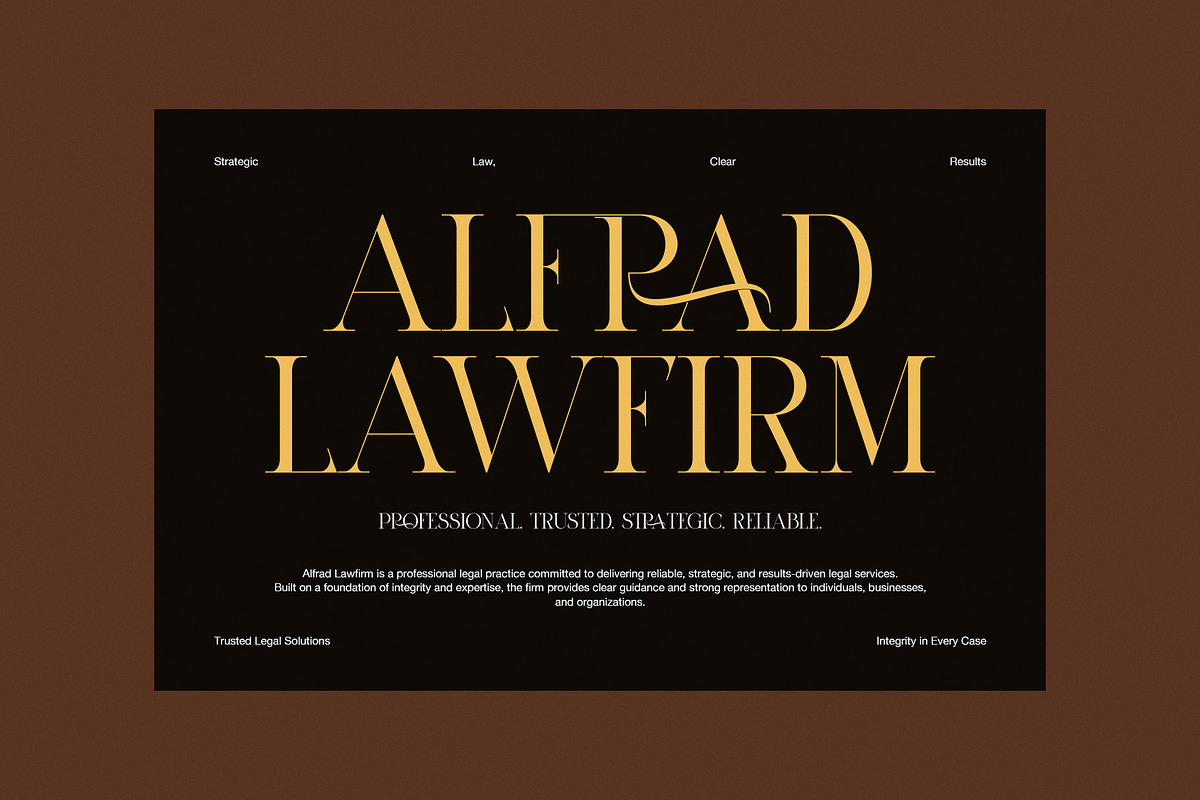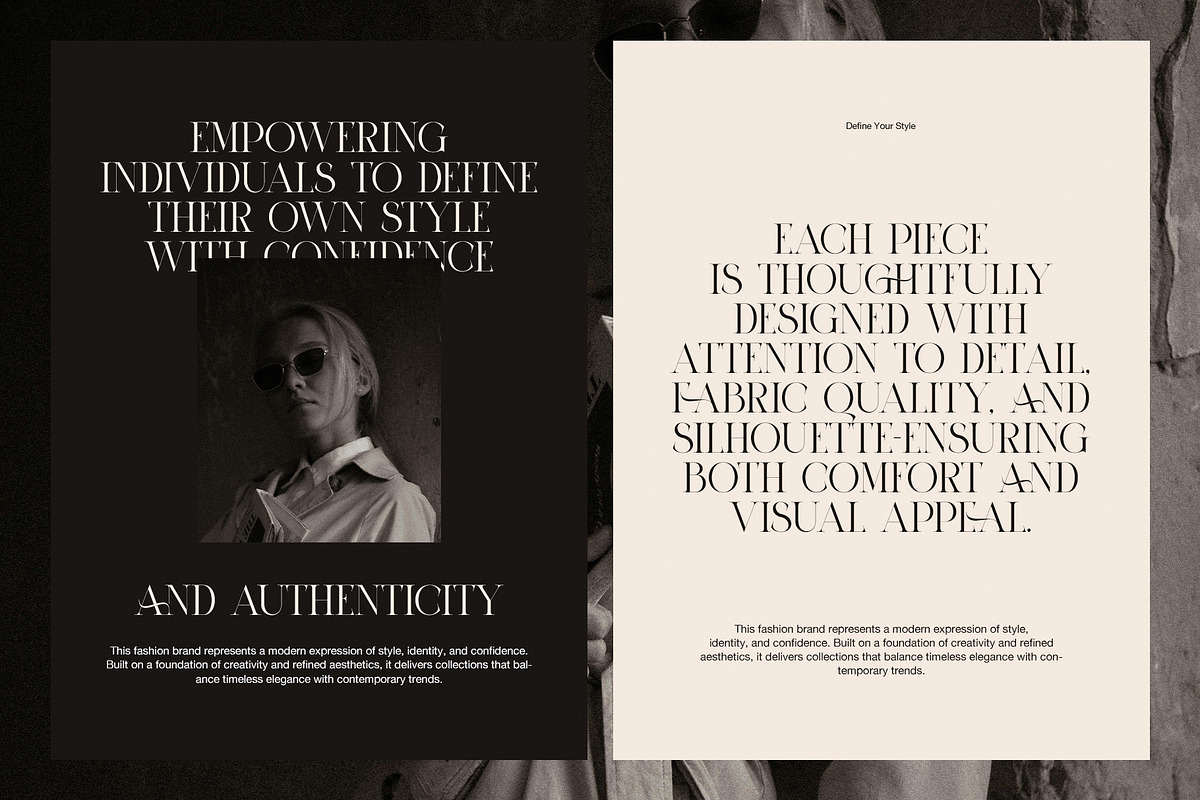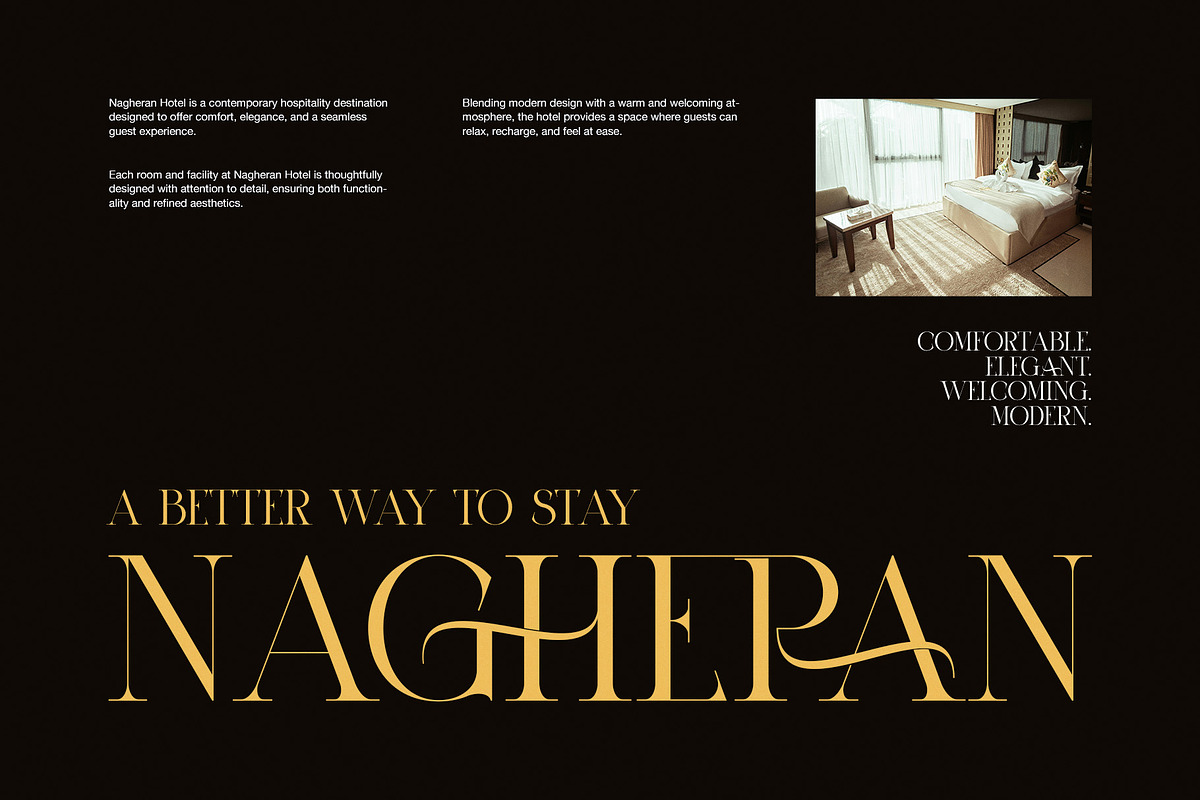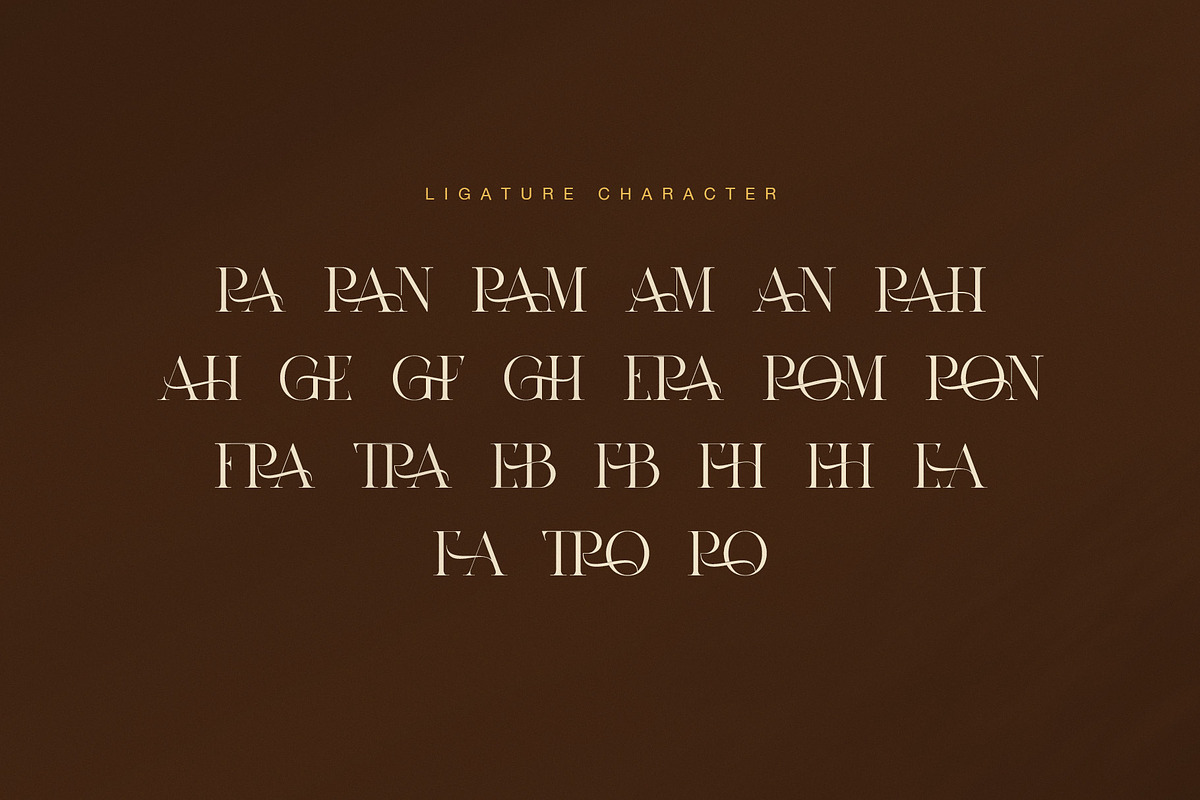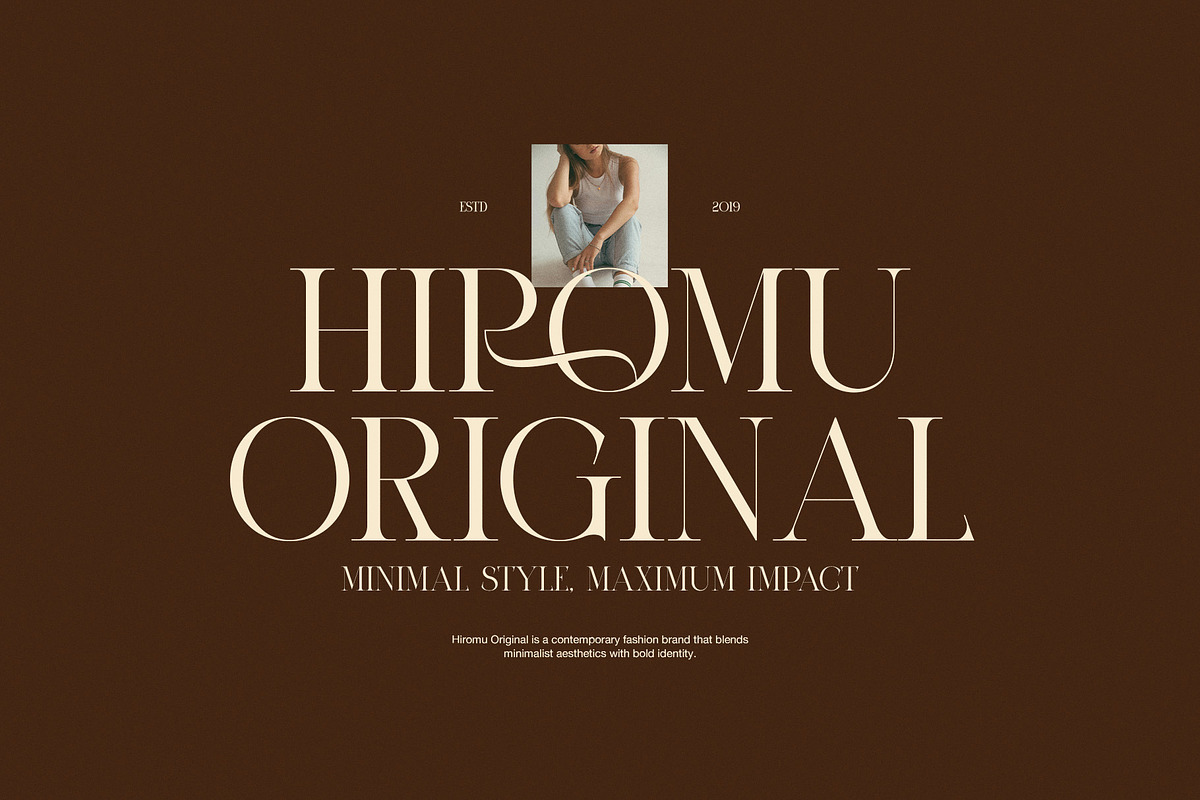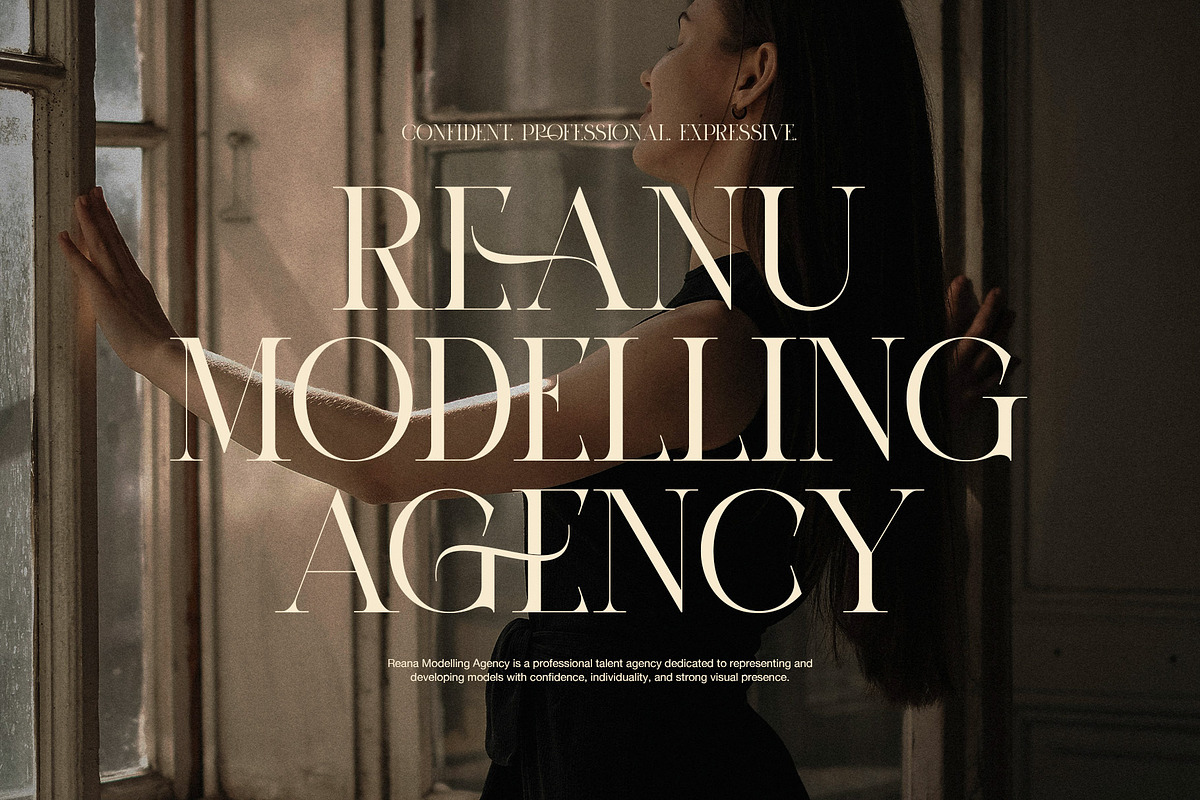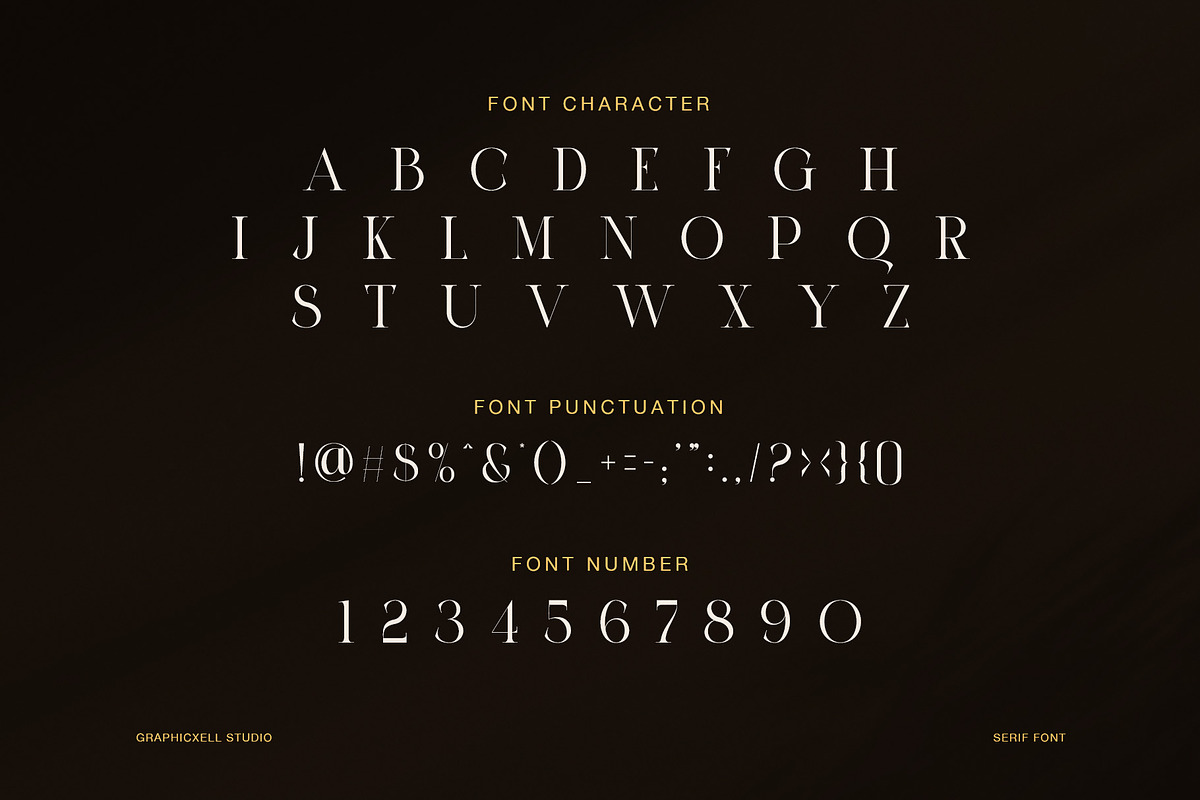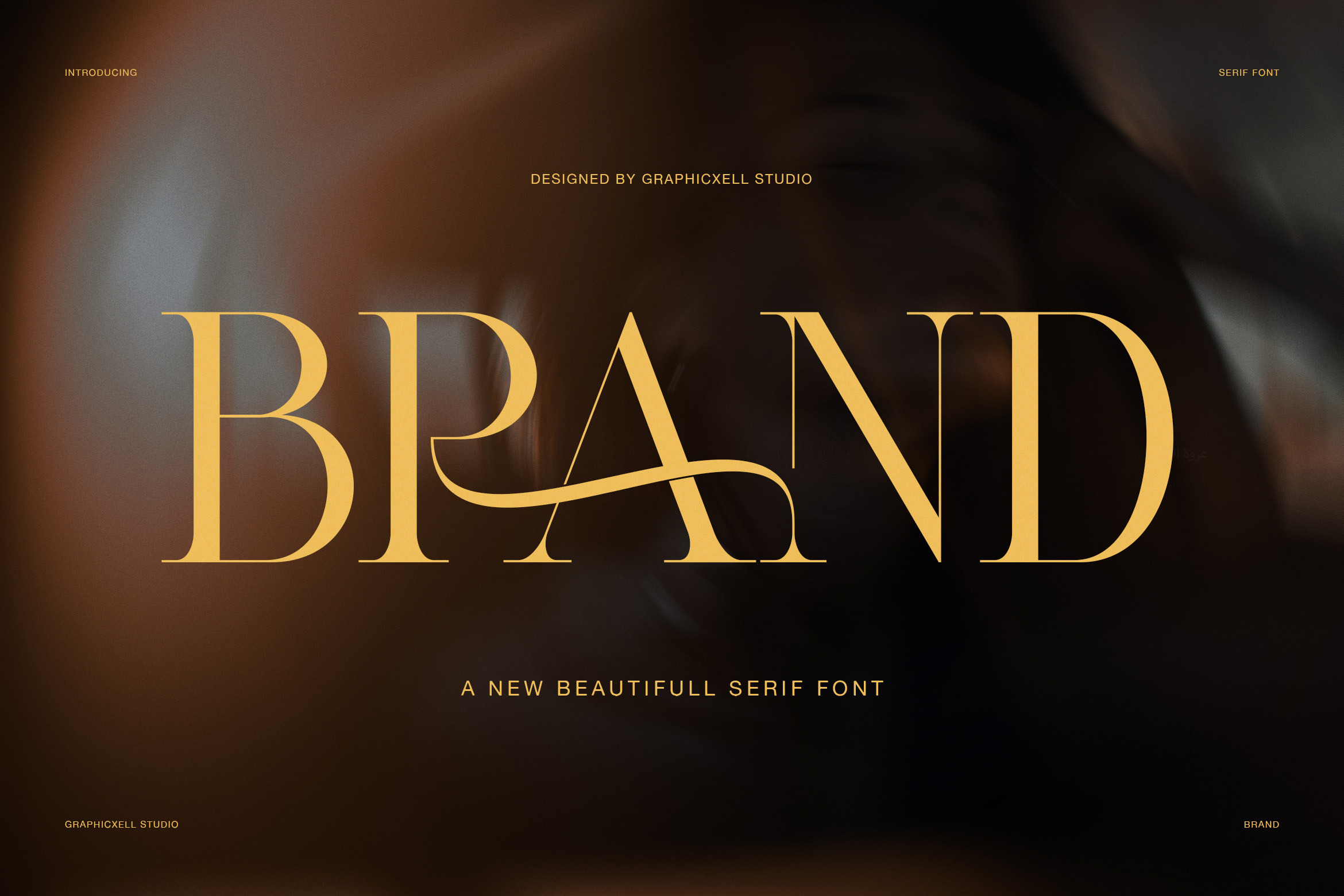
Brand Elegant Serif Font
A Luxury Serif With Strong Visual Style
Brand Elegant Serif Font is a refined serif typeface for designers who need a bold, graceful, and high-end look. Because of its strong shape, this font can turn simple words into a premium visual statement. Its letterforms show thin hairlines, wide stems, sharp serifs, and smooth curves. As a result, the font feels elegant, modern, and expressive.
Elegant Shape and Ligature Details
Moreover, Brand has a stylish display shape with beautiful contrast. The letters A, R, G, P, and H include flowing ligature-style forms that create a rich visual mark. Therefore, this font is a strong choice for logos, fashion titles, beauty packaging, wedding designs, hotel branding, and editorial layouts. In addition, its slim strokes give every design a soft luxury feel.
Best Uses for Brand Elegant Serif Font
For example, you can use Brand Elegant Serif Font for:
- Luxury logos and brand marks
- Fashion magazine headlines
- Beauty product packaging
- Wedding invitations and stationery
- Hotel, spa, and lifestyle branding
- Premium social media posts
- Editorial quotes and poster titles
- Boutique labels and lookbook covers
Why Designers Will Love It
Although Brand feels artistic, it still keeps a clean and balanced structure. So, it is easy to use in both classic and modern layouts. Also, the wide spacing, graceful curves, and stylish alternates help each design look more unique. Because of this, the font works well for brands that want beauty, trust, and class.
Perfect for Premium Branding
Overall, Brand Elegant Serif Font is perfect for designers who want a luxury serif font with expressive ligatures, sharp details, and a strong editorial style. Furthermore, it brings charm, confidence, and visual value to every creative project. Finally, it helps your work feel polished, memorable, and ready for premium markets.